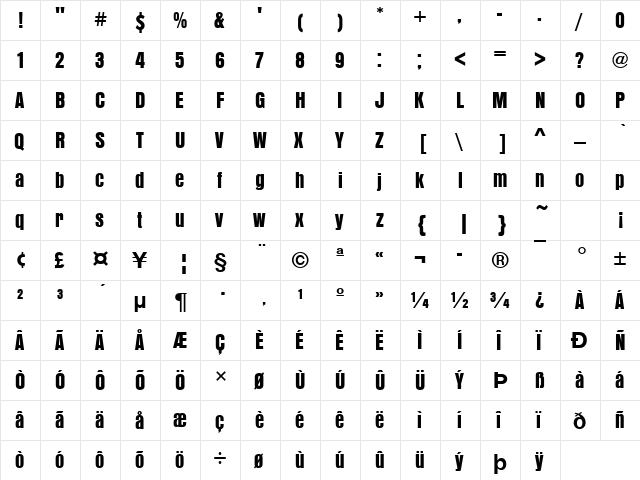
AnzeigenGroT Regular
Design Context for AnzeigenGroT Typeface
AnzeigenGroT takes a measured approach to typography — its balanced proportions and neutral character make it a reliable workhorse for both digital and print work.
Pro Tip: Use AnzeigenGroT in both headline and body roles to test its range before committing to a single application.